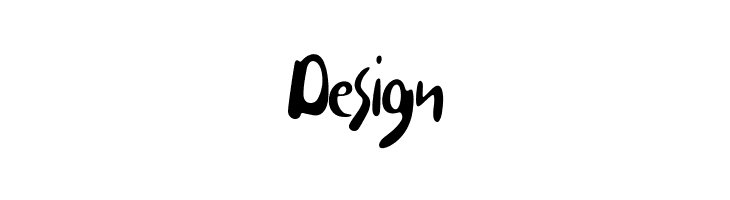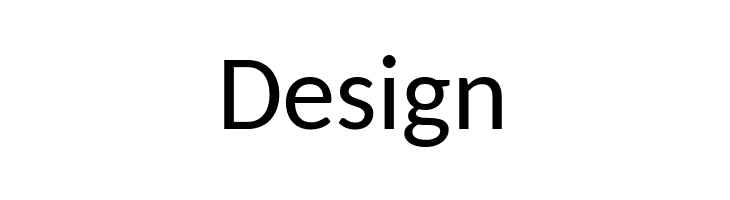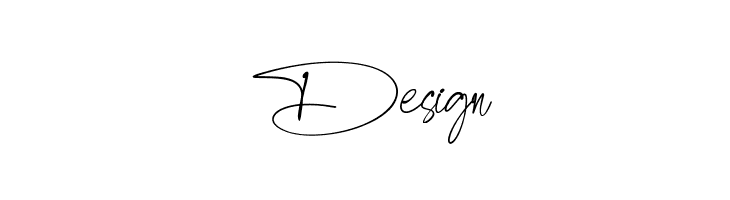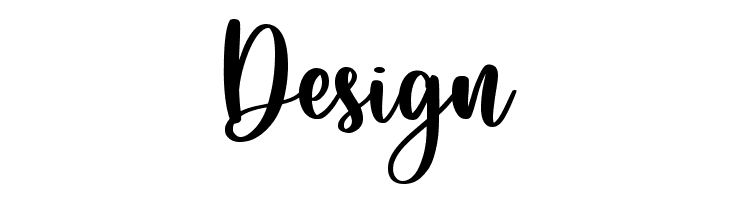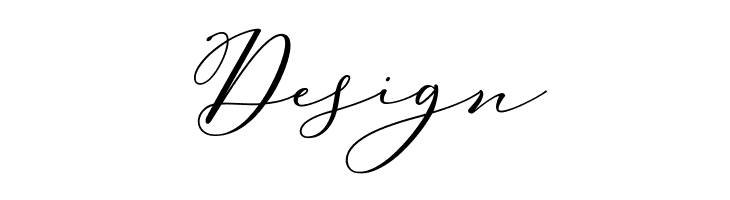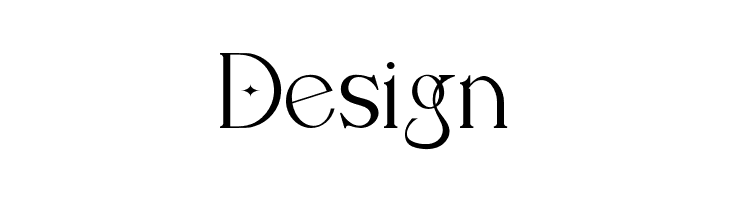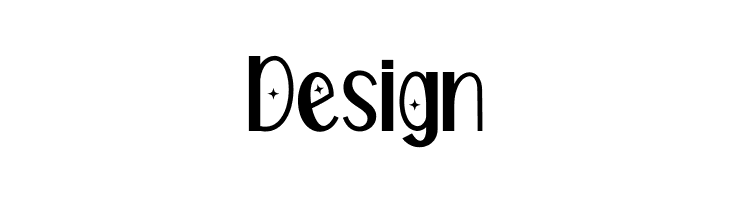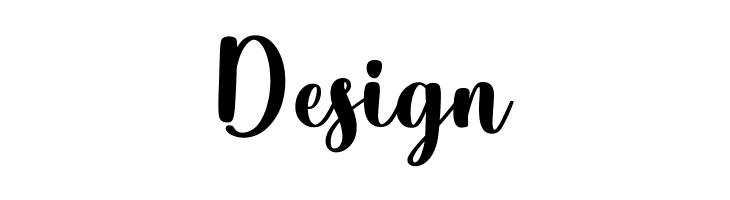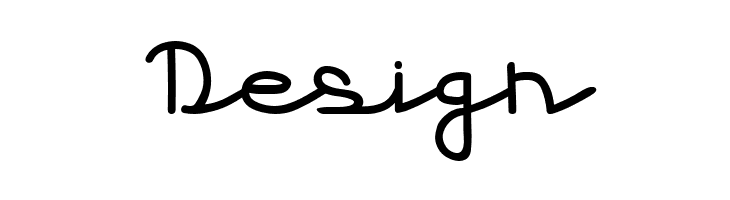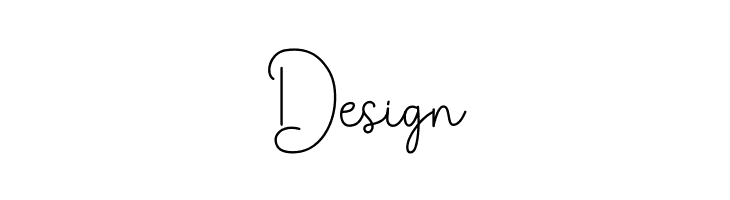
A bold, playful handwritten font with dynamic strokes and a lively appearance.
A playful and elegant script font with flowing, cursive letterforms.
An elegant serif font with sharp serifs and high contrast strokes.
A classic serif typeface with elegant curves and refined structure.
A playful font composed of various expressive emoticons.
A bold, geometric font with strong, modern letterforms.
A playful, hand-drawn font with bold, irregular strokes and a whimsical style.
A bold, flowing script font with elegant curves and cohesive style.
An elegant, fluid script font with a sophisticated, handwritten style.
A lively and expressive handwritten font with fluid strokes.
A playful, casual handwritten font with smooth, flowing lines.
An elegant, cursive font with fluid strokes and graceful flourishes.
An elegant, high-contrast script font with flowing, interconnected letters.
A dynamic, cursive script font with smooth, flowing letterforms.
A clean, modern sans-serif font with uniform stroke width and excellent readability.
A dynamic and fluid script font with elegant, flowing letterforms.
A charming handwritten script with fluid, connected strokes.
A modern serif font with decorative star cutouts and elegant strokes.
A decorative serif font with unique circular cutouts in each character.
A modern, bold font with rounded, geometric characters and a futuristic style.
A bold, geometric font with rounded strokes and a modern aesthetic.
A bold, decorative font with star-like cutouts in each character.
A flowing, elegant script font with artistic curves and loops.
A modern, geometric font with a condensed and uniform appearance.
A bold, geometric font with a modern and clean design.
A modern italic font with sleek, slanted letters and smooth curves.
A bold, expressive script font with flowing cursive letterforms.
A playful and elegant handwritten font with a modern twist.